You can use Script fonts without any worries of being flaked for romantic, personal or corporate projects.
This post is a small effort to collect and showcase different types of Script Fonts under one roof, so that you don’t have to waste your precious time everytime you are looking for a Script font for your projects.
Therefore, you don’t have to worry about being judged by using one of these types of fonts if you are a male or female.
However, we are hoping that this list will save you some time, so you won’t have to scour the internet for other script fonts. So, go ahead and use one of these fonts for your project freely and you won’t have to worry about any sort of criticism.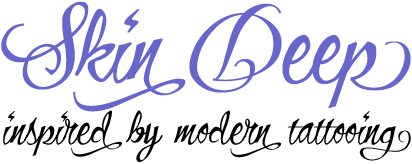
This post is a small effort to collect and showcase different types of Script Fonts under one roof, so that you don’t have to waste your precious time everytime you are looking for a Script font for your projects.
Therefore, you don’t have to worry about being judged by using one of these types of fonts if you are a male or female.
However, we are hoping that this list will save you some time, so you won’t have to scour the internet for other script fonts. So, go ahead and use one of these fonts for your project freely and you won’t have to worry about any sort of criticism.